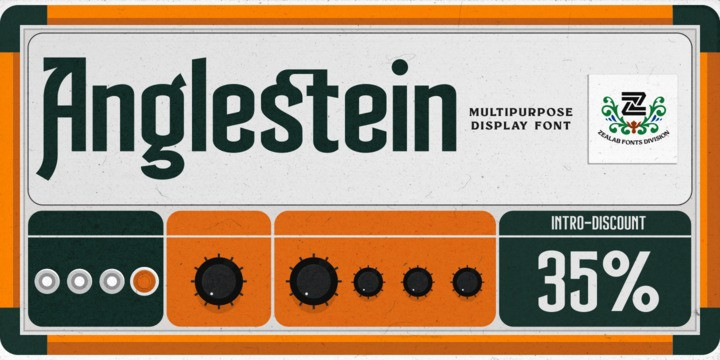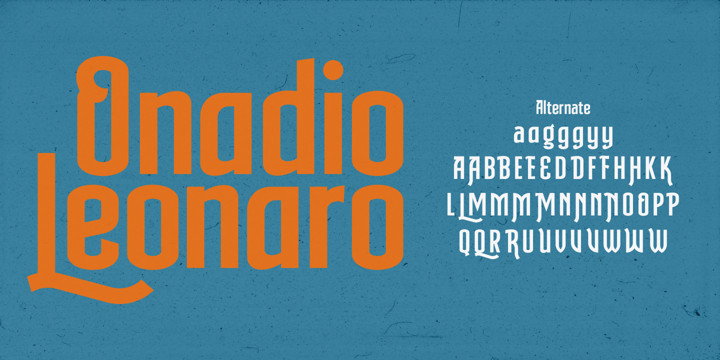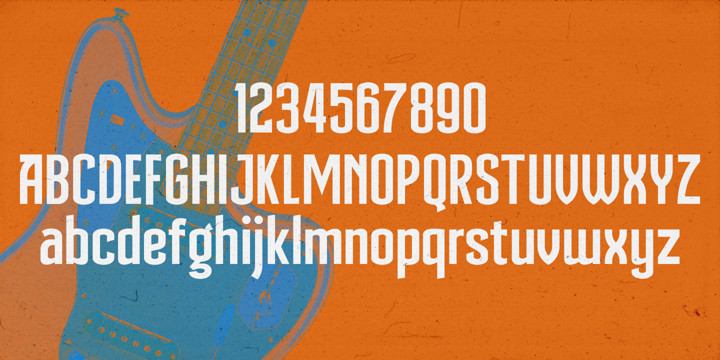
Anglestein Font
ANGLESTEIN is a multipurpose display font inspired by retro car and amplifier emblem.
with all caps,multilingual support, alternates signs, numbers & punctuation.
Really fit for Band word mark, album cover , video tittle, sticker, clothing , t-shirt designs, badges designs, banner, flyer, etc.